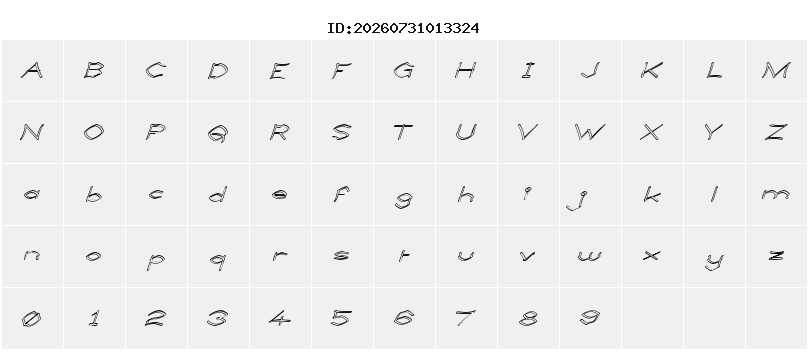
Llynfyrch Fwyrrdynn Ouline Preview
• Font Name: Llynfyrch Fwyrrdynn Ouline
• Full Font Name: Llynfyrch Fwyrrdynn Ouline
About Llynfyrch Fwyrrdynn Ouline.ttf
Llynfyrch Fwyrrdynn Ouline.ttf is a modern, elegant sans-serif font designed for ultimate readability and visual harmony. Perfect for branding, headlines, web design, and print materials.